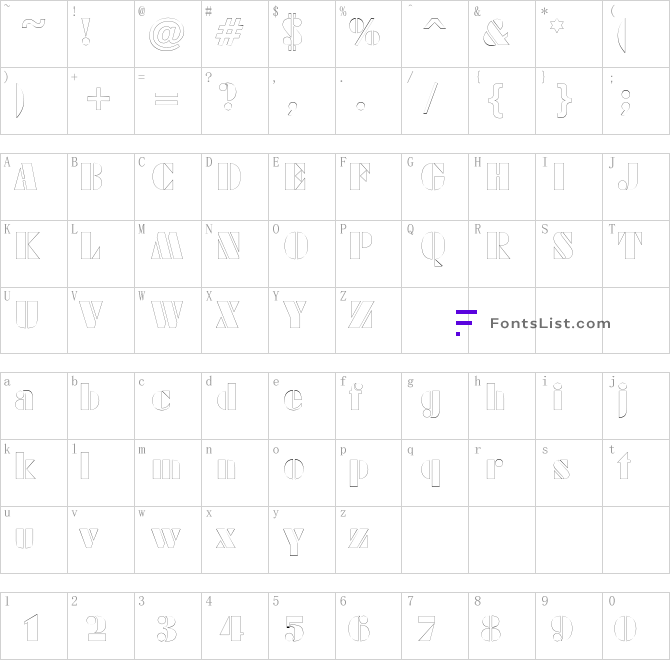
- Font Name:ArmyBlackOutline
ArmyBlackOutlinePlain.ttf is a very beautiful artistic font, ArmyBlackOutlinePlain.ttf is widely used in the design and printing of various books and pictures,ArmyBlackOutlinePlain.ttf has a strong visual impact,ArmyBlackOutlinePlain.ttf is a commonly used font in newspapers, magazines and books, and is used in posters, e-commerce Poster design, store design, logo design, font design and other fields.ArmyBlackOutlinePlain.